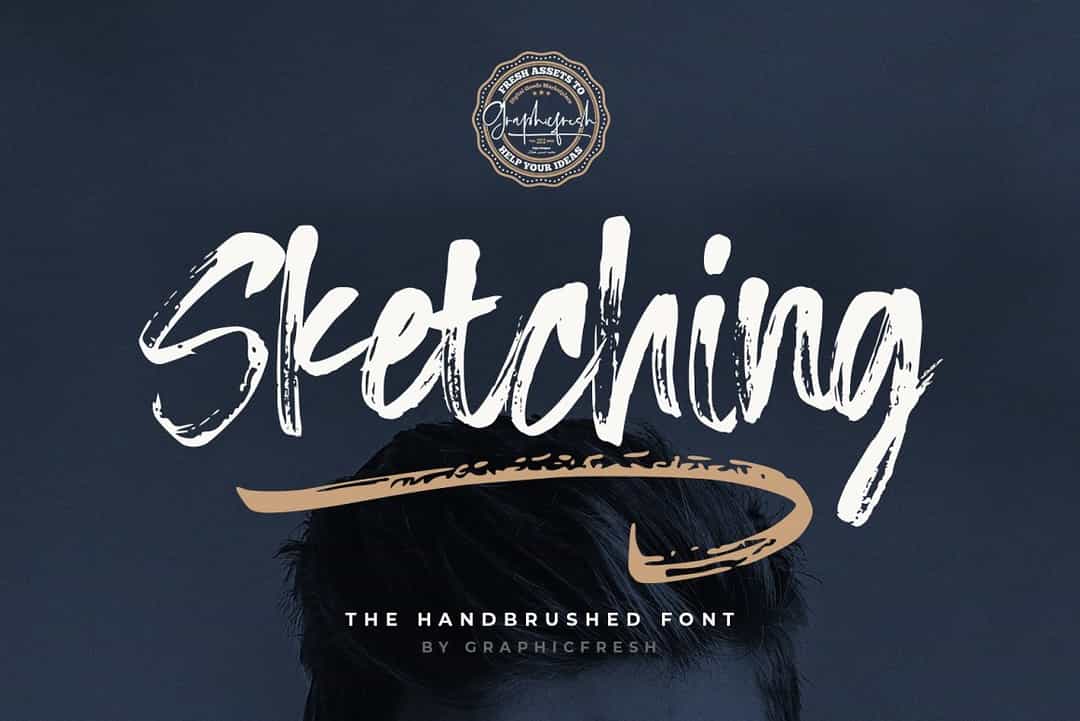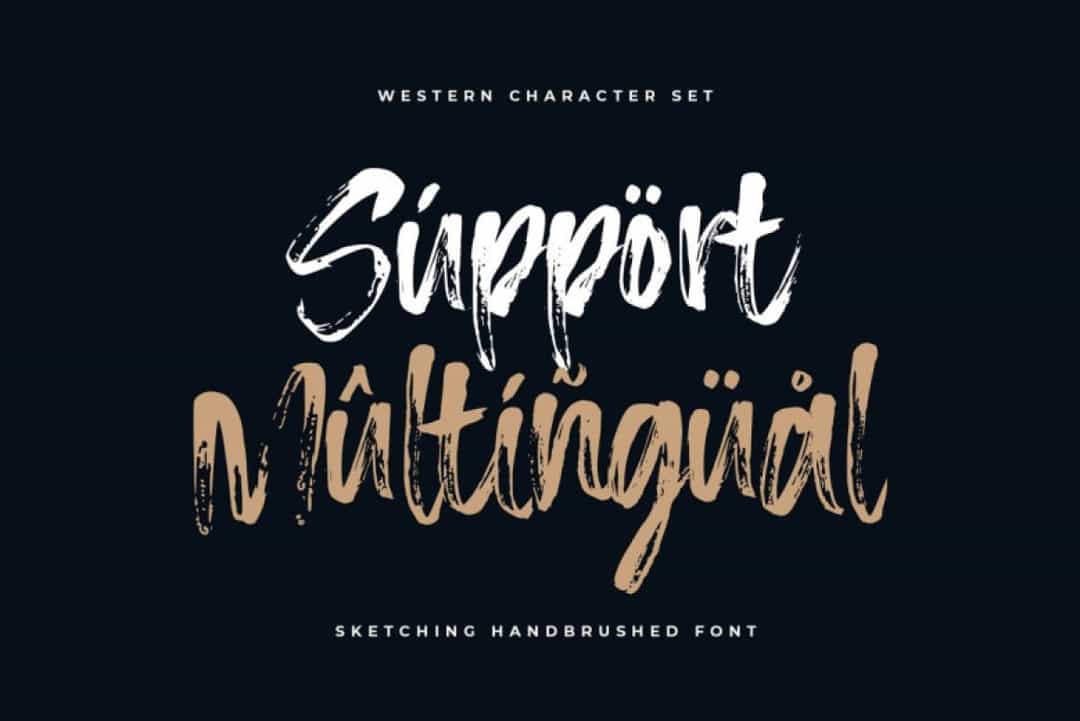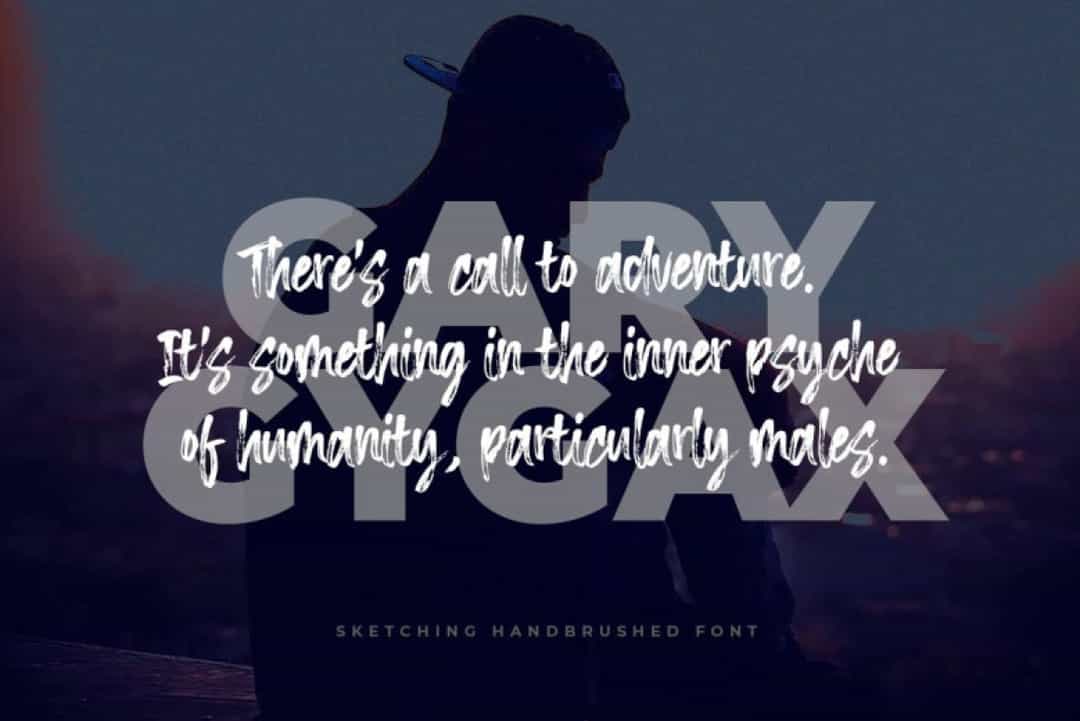
Discover Sketching Font, part of the Brush collection—a versatile and unique font perfect for adding a personal touch to your projects. Download it for free and enjoy crafting designs with style, from invitations to social media posts. This font is available exclusively for personal use, giving you the freedom to create without limits. Unlock your creativity with Sketching Font today!
Hello all! Recently, we created a font using ink streaks on paper and brushes, and are very excited with how this came out as it’s an art piece in itself! Each letter of our design stands out in its own unique way so we hope you like our latest font creation!